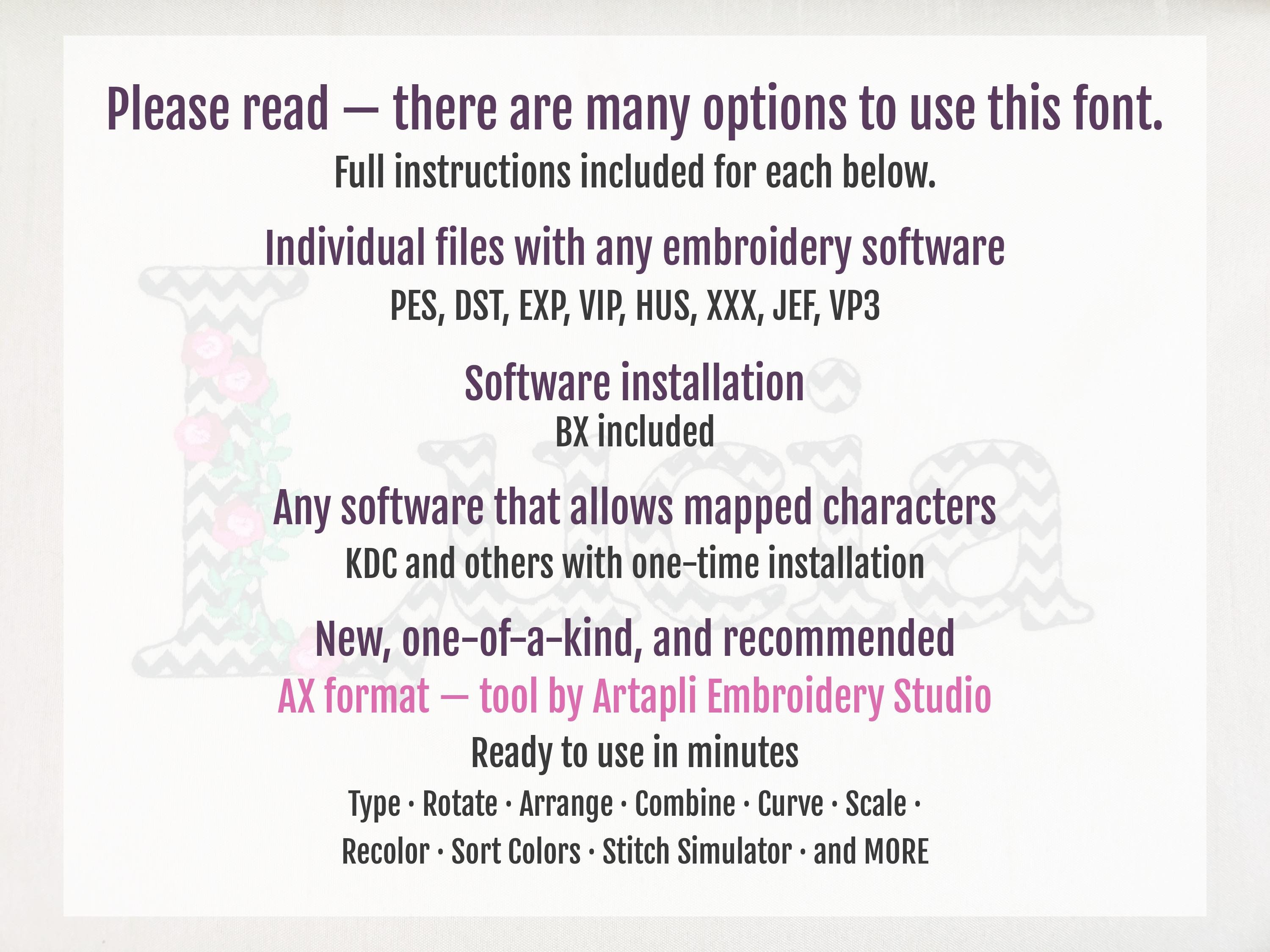
Mini roses and chevron RIC RAC Font light sketch stitch outline and rose flowers machine embroidery designs font alphabet letters BX included
This is a quick stitch design, looks like lace, and the background fabric looks through. Stunning effect! Chevron lines are part of the embroidery.